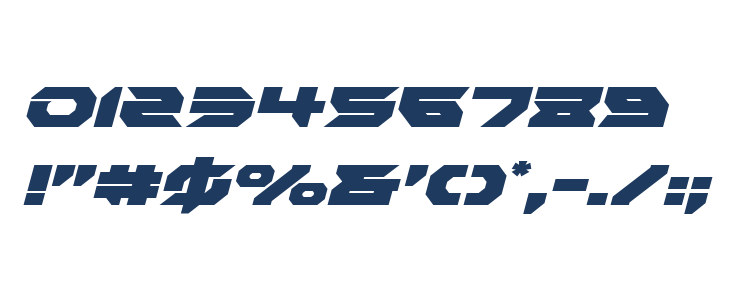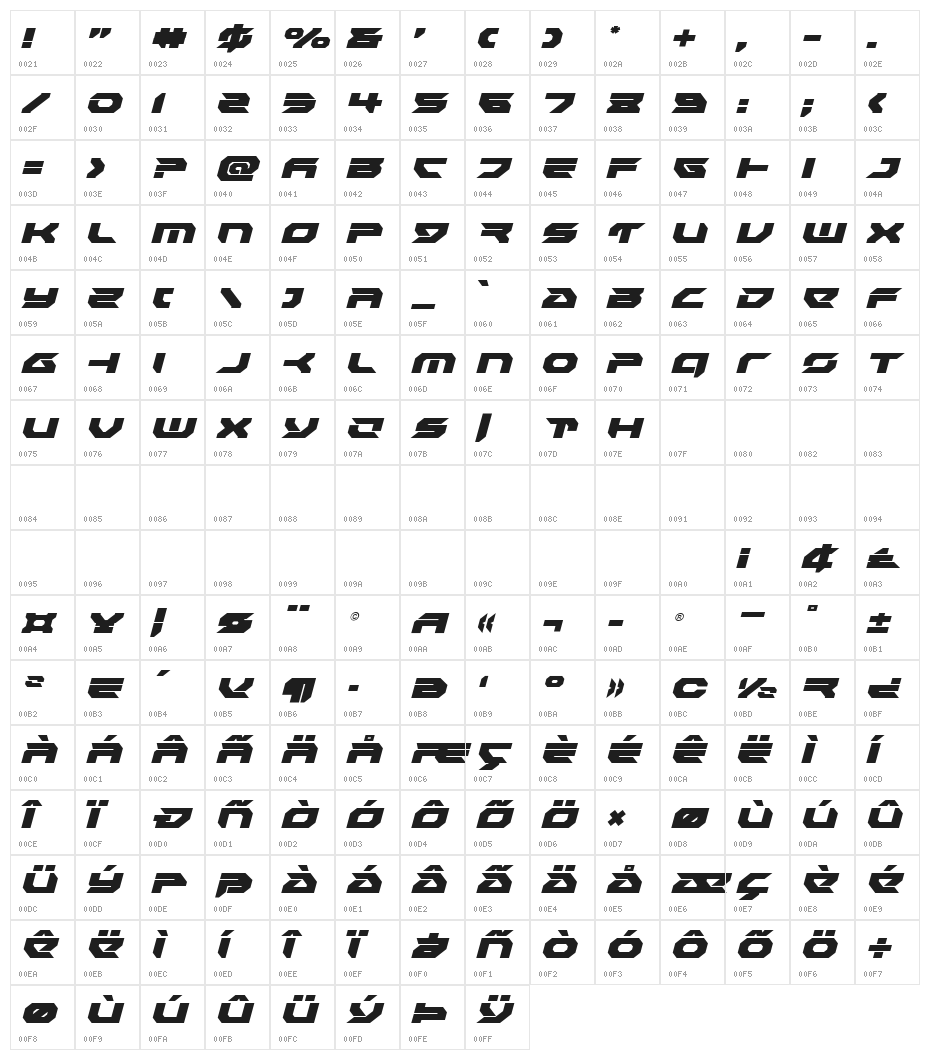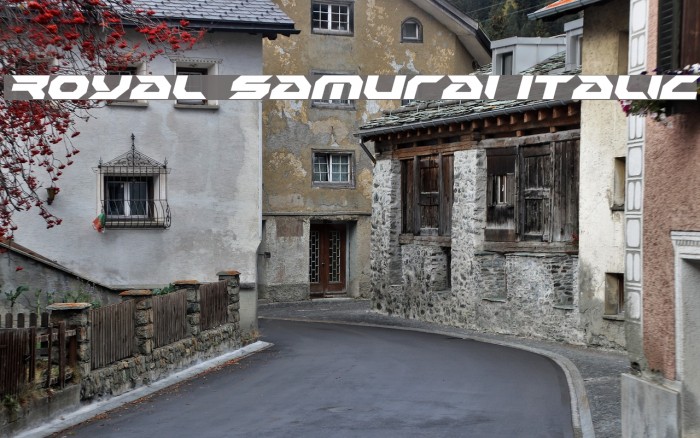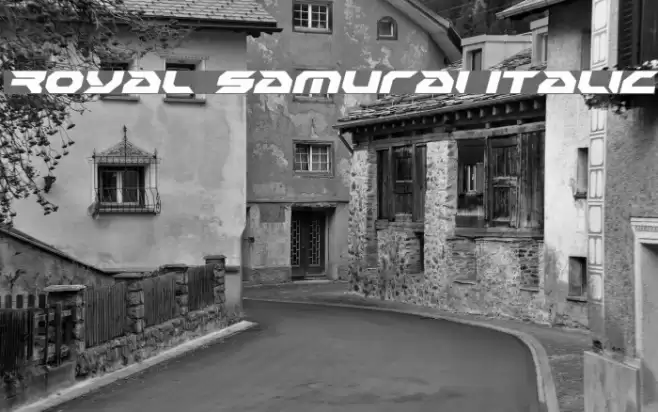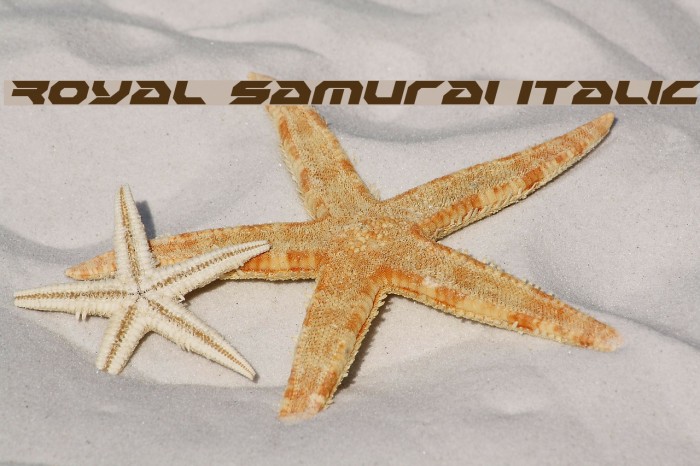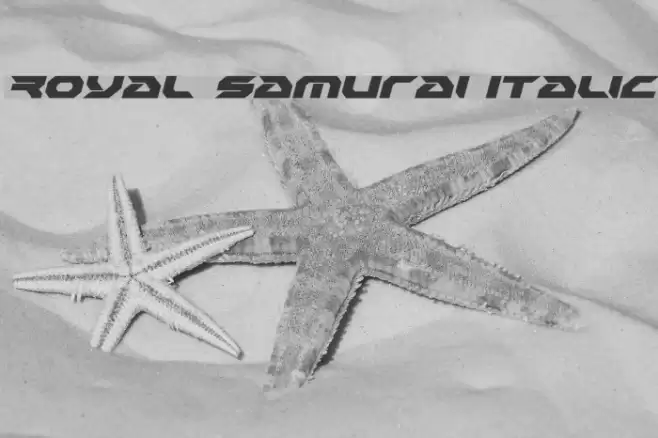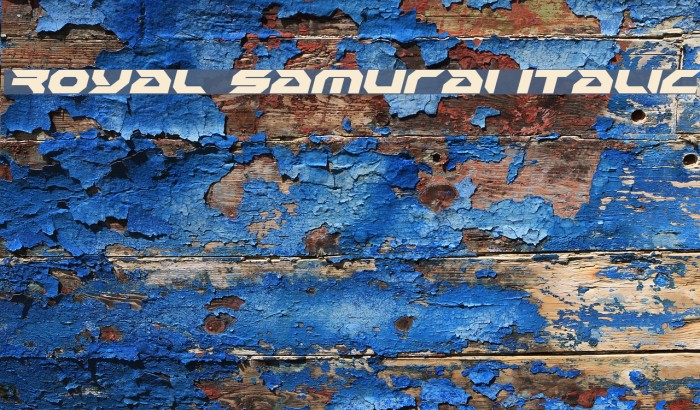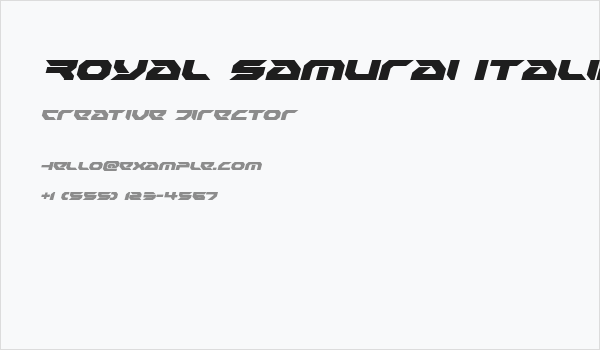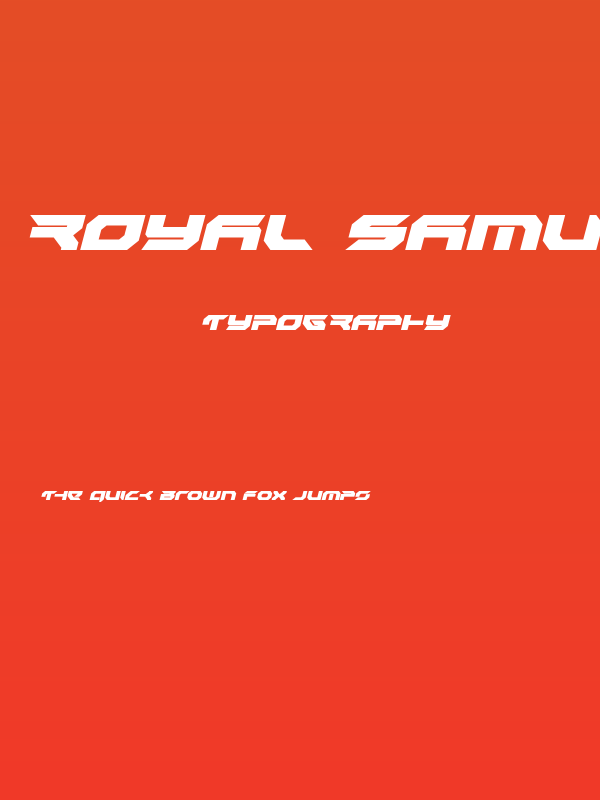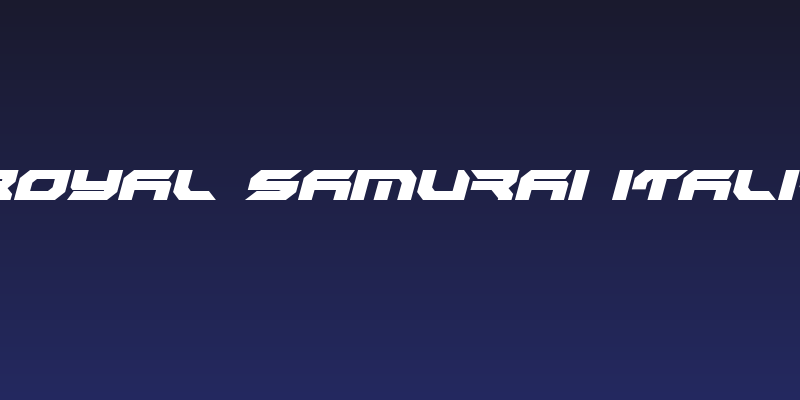
Royal Samurai Italic Font
Royal Samurai Italic Description
This font features a bold, angular design with a futuristic and dynamic appearance. The characters are sharply cut with geometric precision, giving them a strong, impactful presence. The italic slant adds a sense of motion and energy, making it ideal for attention-grabbing headlines or branding. The uppercase and lowercase letters maintain consistency in style, with a unique flair that suggests a blend of modern technology and traditional craftsmanship. The numbers and special characters follow the same design principles, ensuring uniformity across all text elements.
| Proposed Projects | Ideal for sci-fi themed projects, video game titles, technology branding, and dynamic posters. |